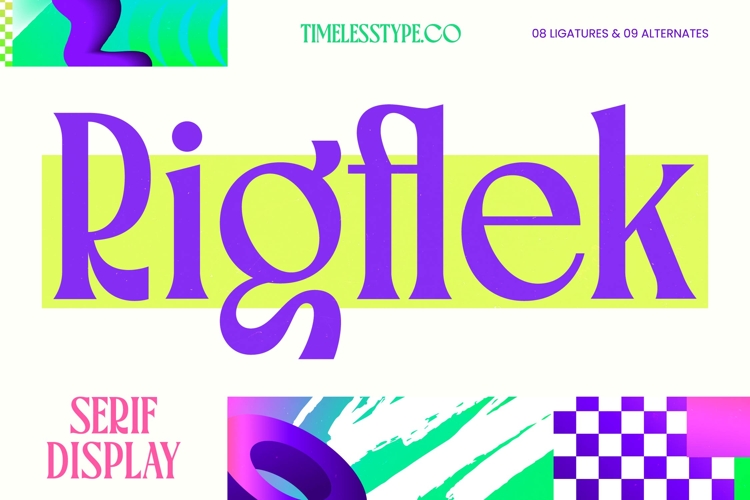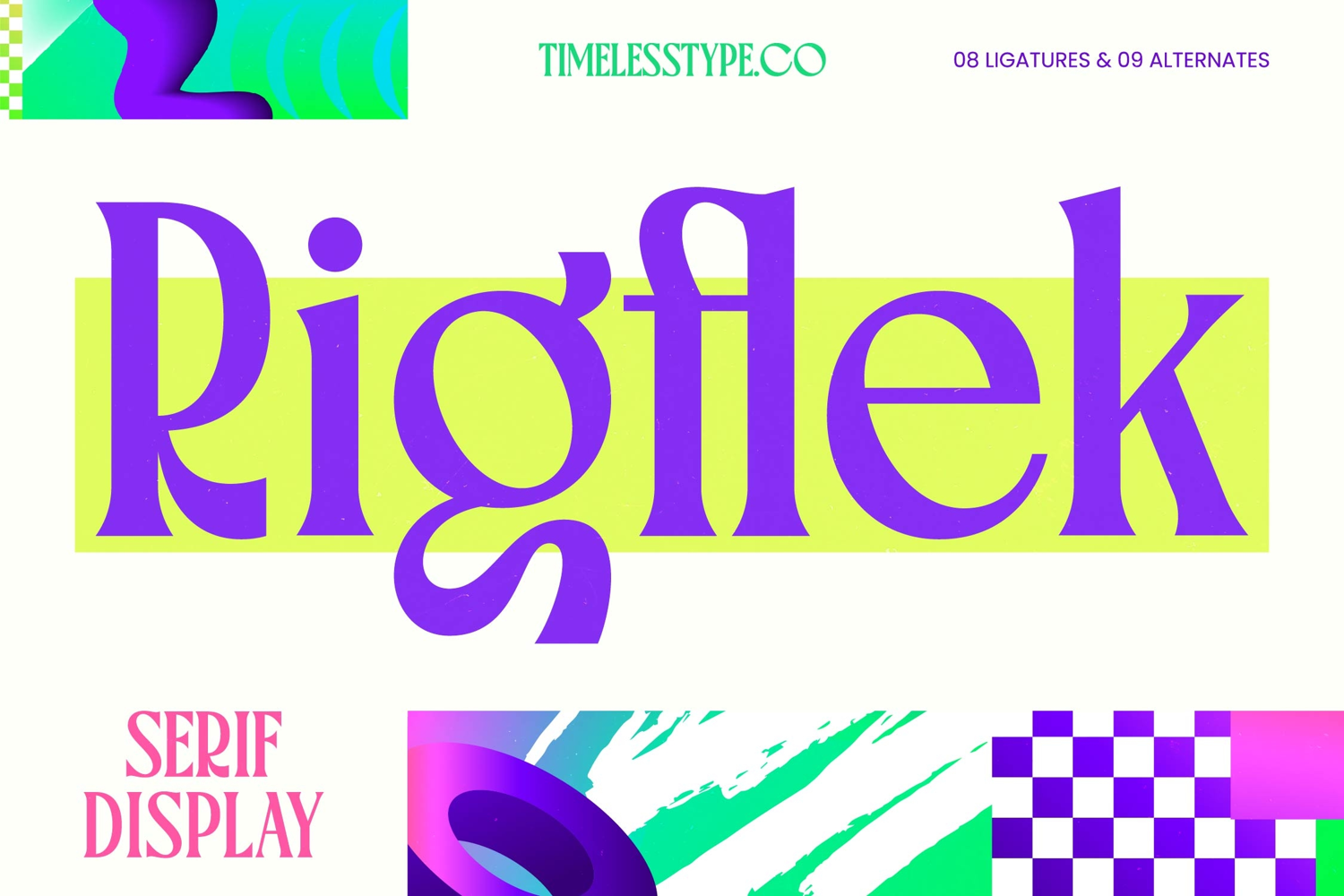
Rigflek - Serif Display Font
Elevate your creative vision with Rigflek - Serif Display Font, a masterpiece of contemporary typography that blends high-contrast elegance with a bold, modern aesthetic. Designed specifically for high-impact visual communication, Rigflek - Serif Display Font offers a striking balance between traditional serif structures and cutting-edge design elements. Its sophisticated silhouettes and refined proportions make it a standout choice for designers seeking to convey luxury and authority in every character.
Command attention on a global scale through a typeface that transcends linguistic barriers. With its extensive multilingual support, Rigflek - Serif Display Font adapts seamlessly across global markets, making it incredibly versatile for international projects. This feature ensures that your brand voice remains consistent and impactful, whether you are targeting domestic audiences or expanding your reach into European and Western markets with confidence and stylistic integrity.